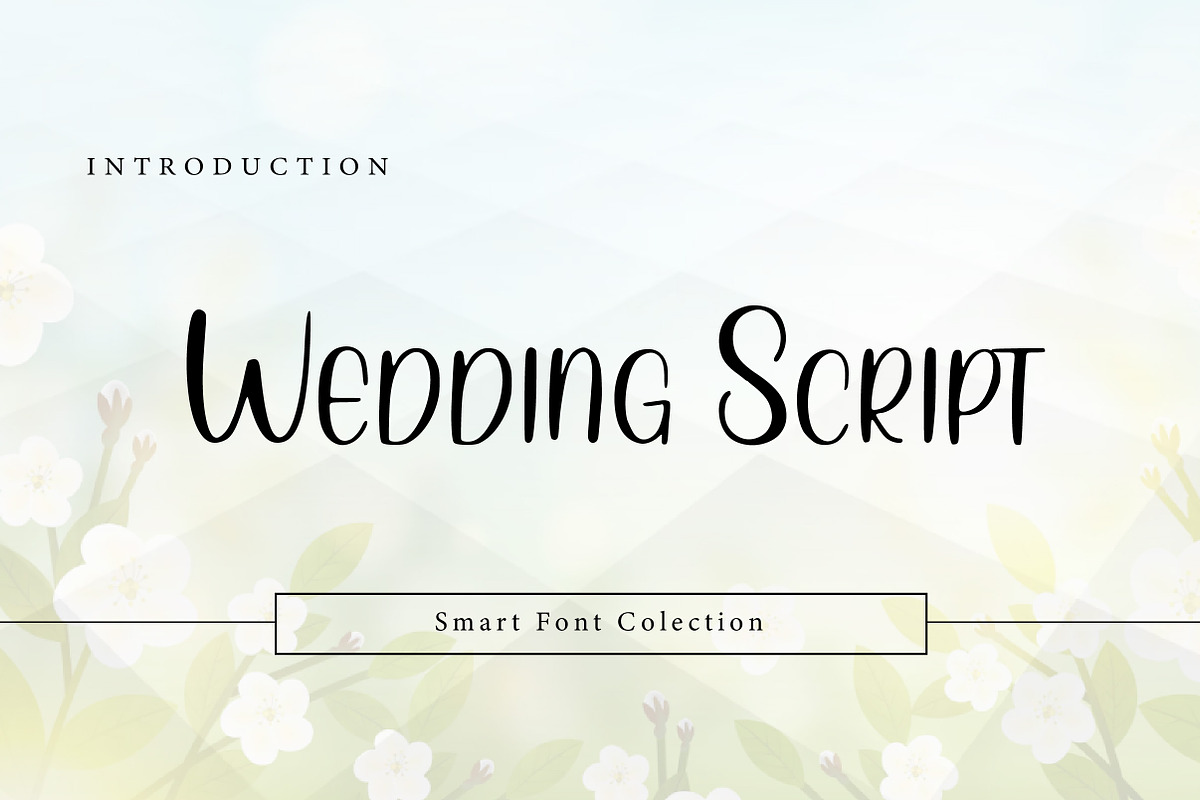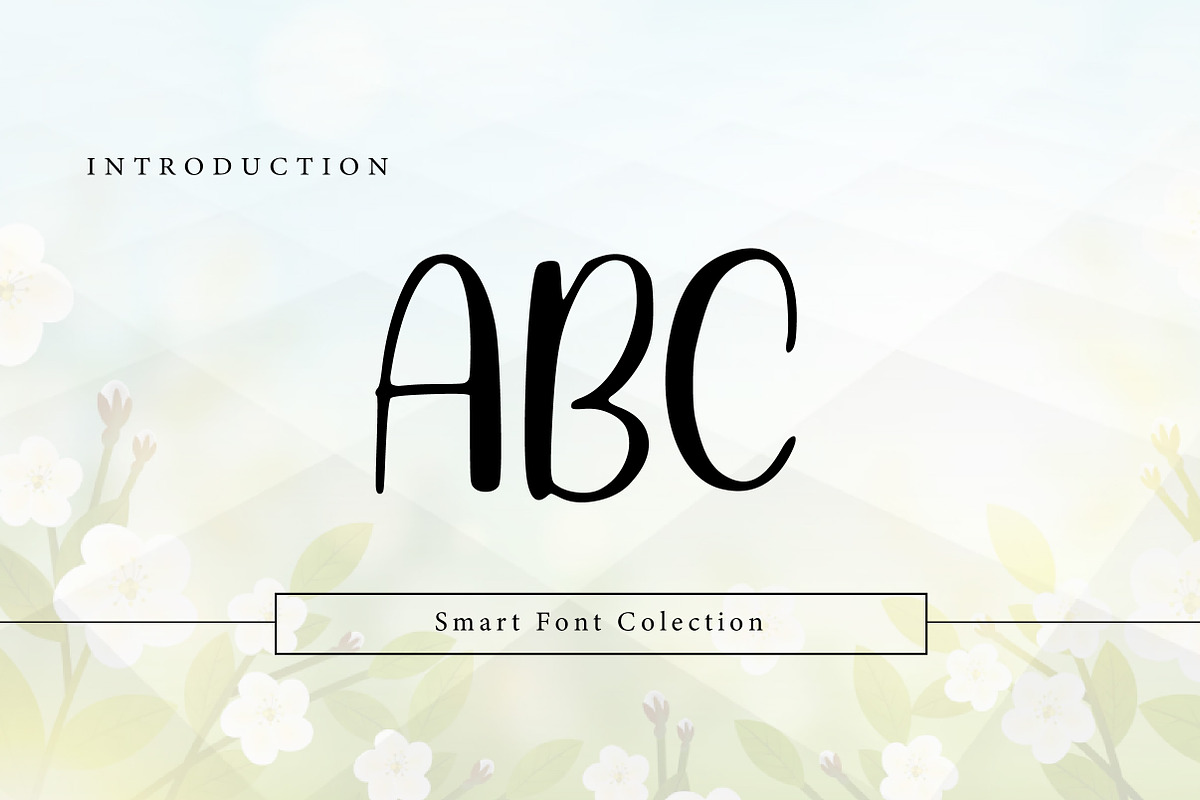
Wedding Script
Wedding Script is an elegant, romantic script typeface designed to capture the beauty and emotion of timeless wedding calligraphy. Featuring smooth flowing strokes, graceful curves, and a natural handwritten rhythm, this font brings sophistication and warmth to any design. Wedding Script is perfect for wedding invitations, save-the-date cards, bridal branding, logos, greeting cards, event stationery, and luxury packaging. Its refined yet friendly style ensures excellent readability while maintaining a classic, romantic charm suitable for both print and digital designs.